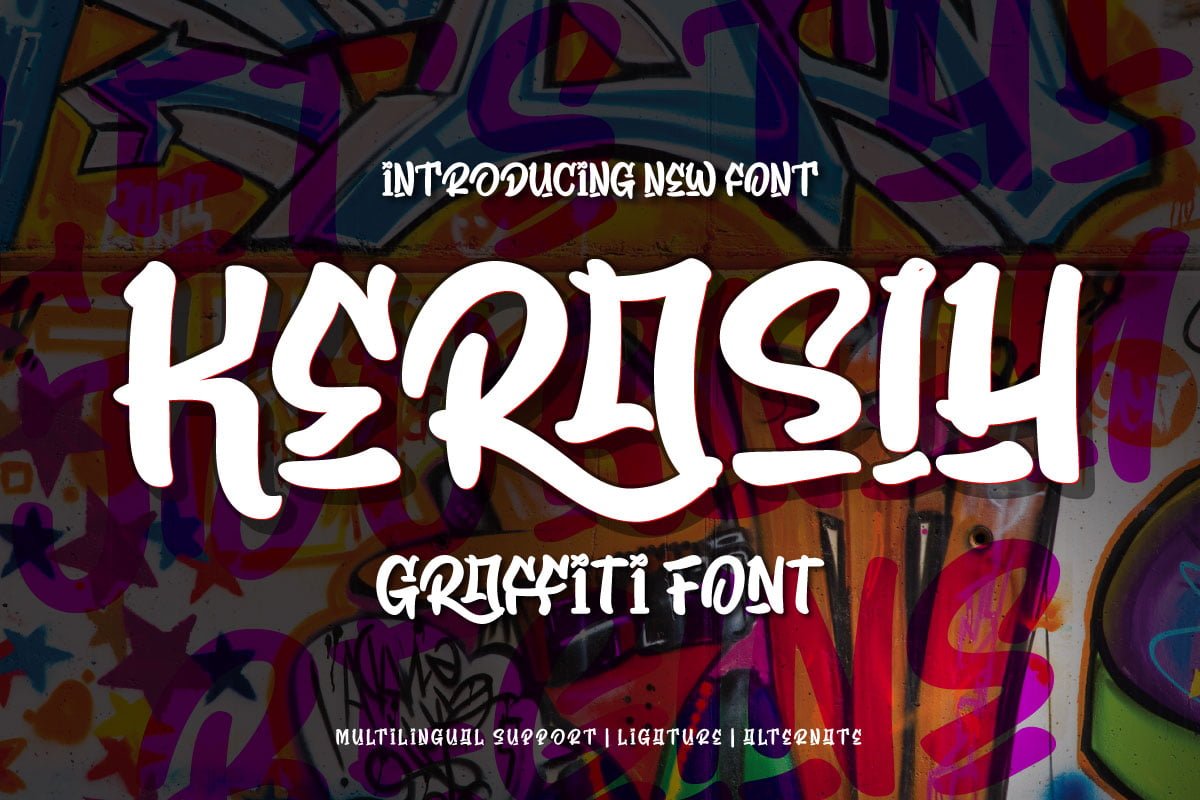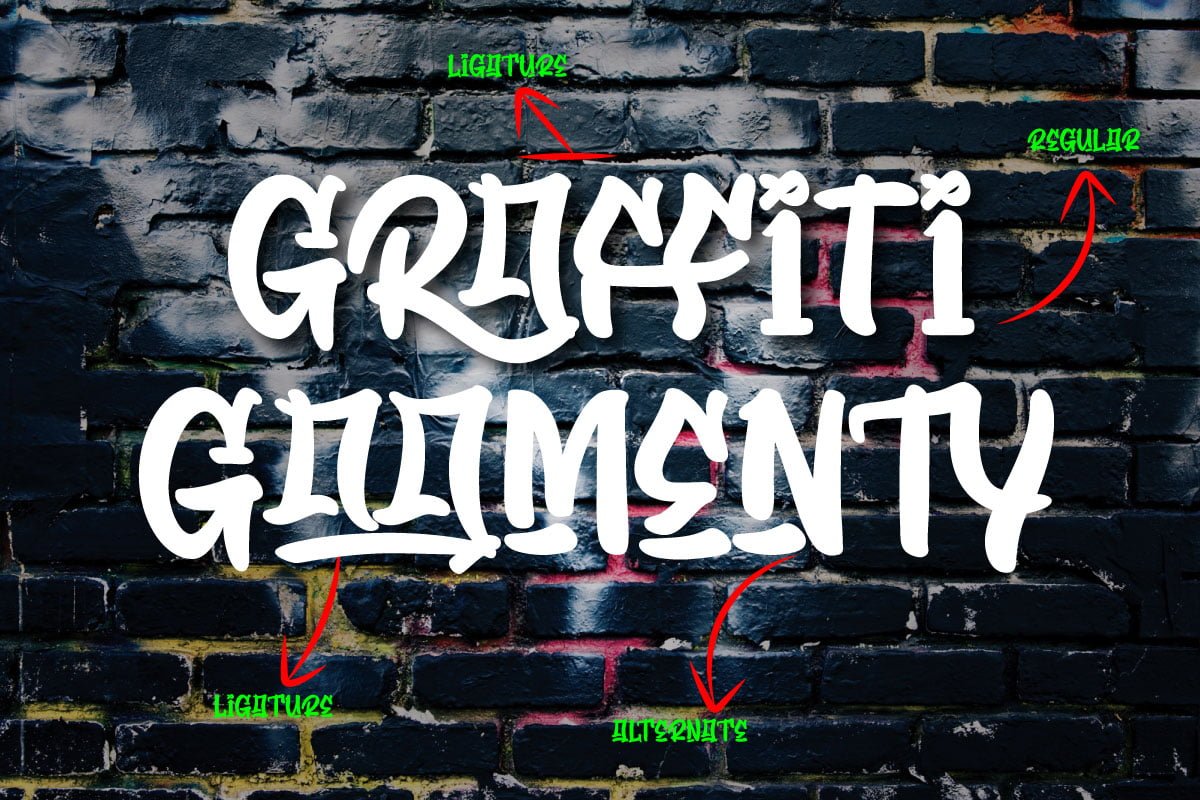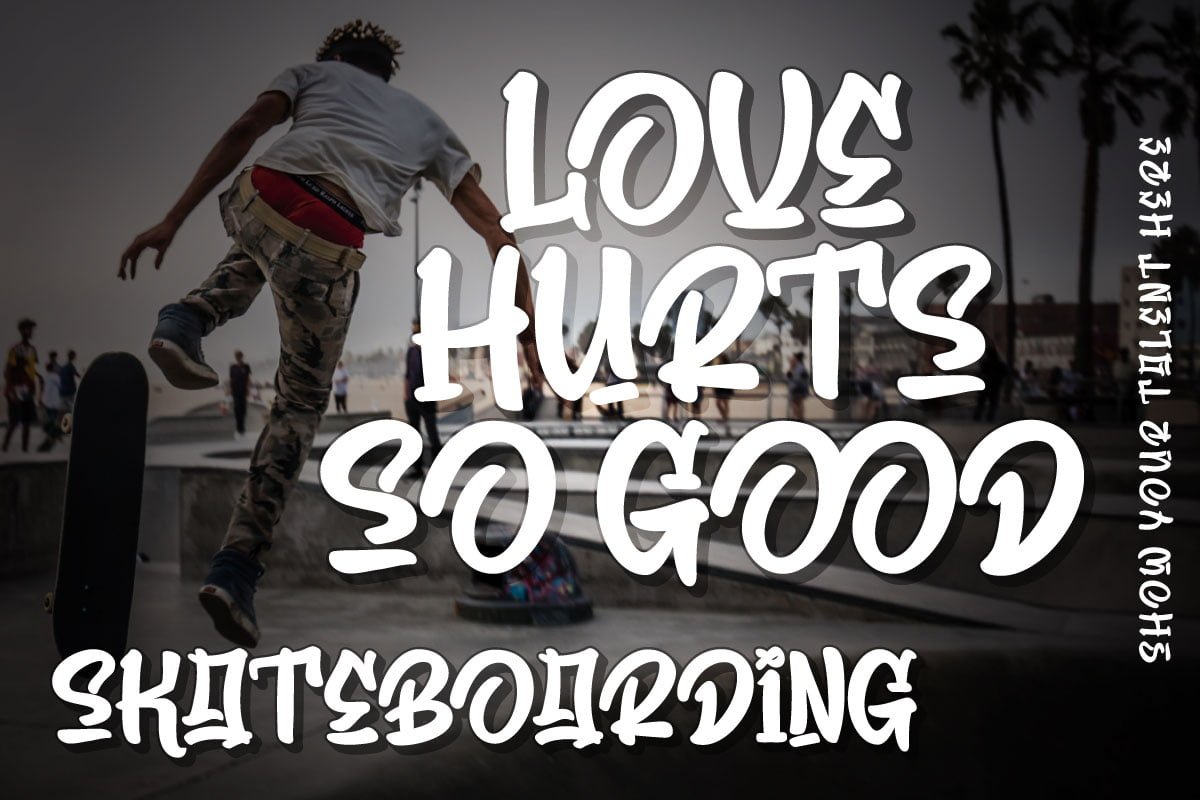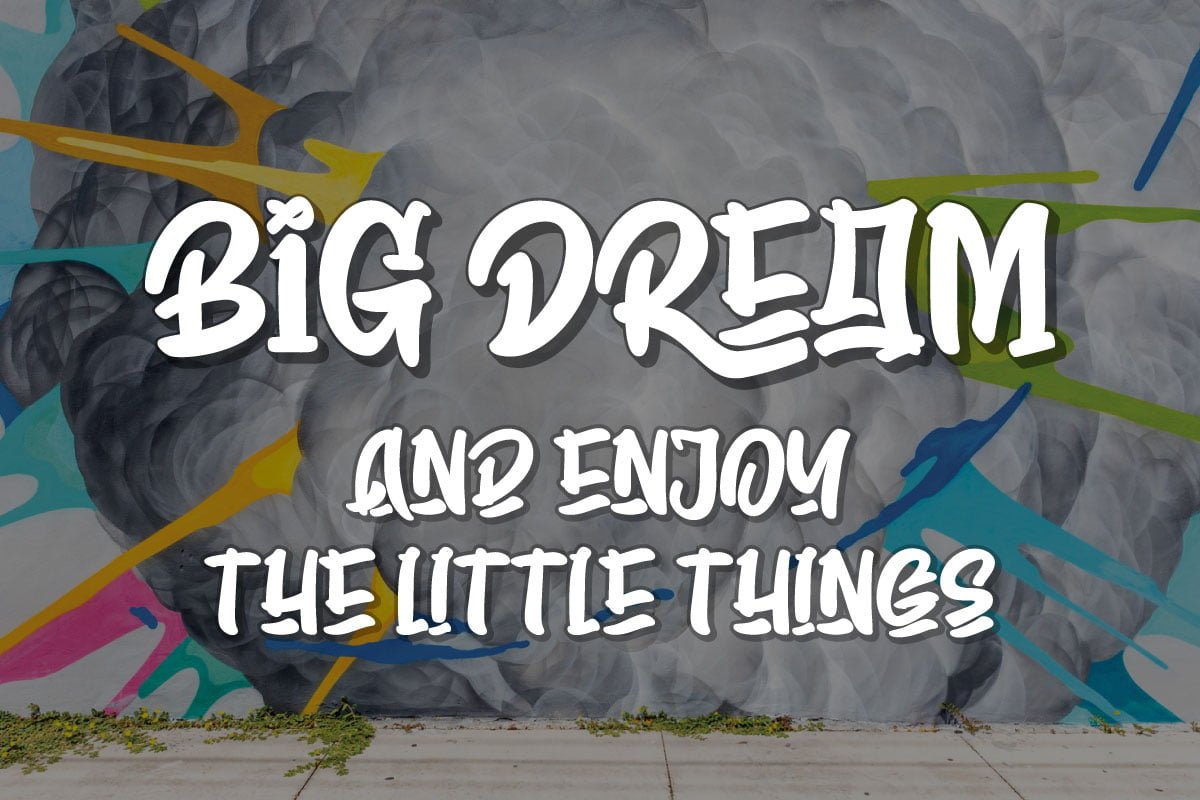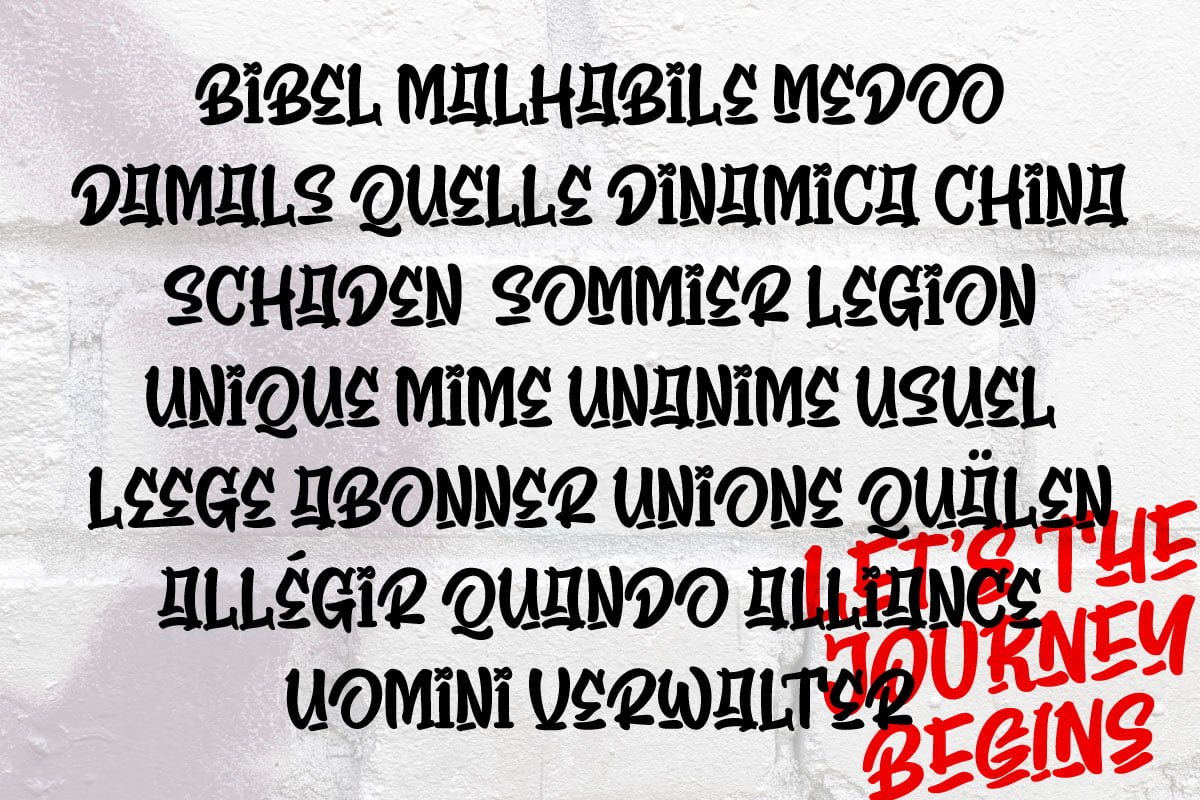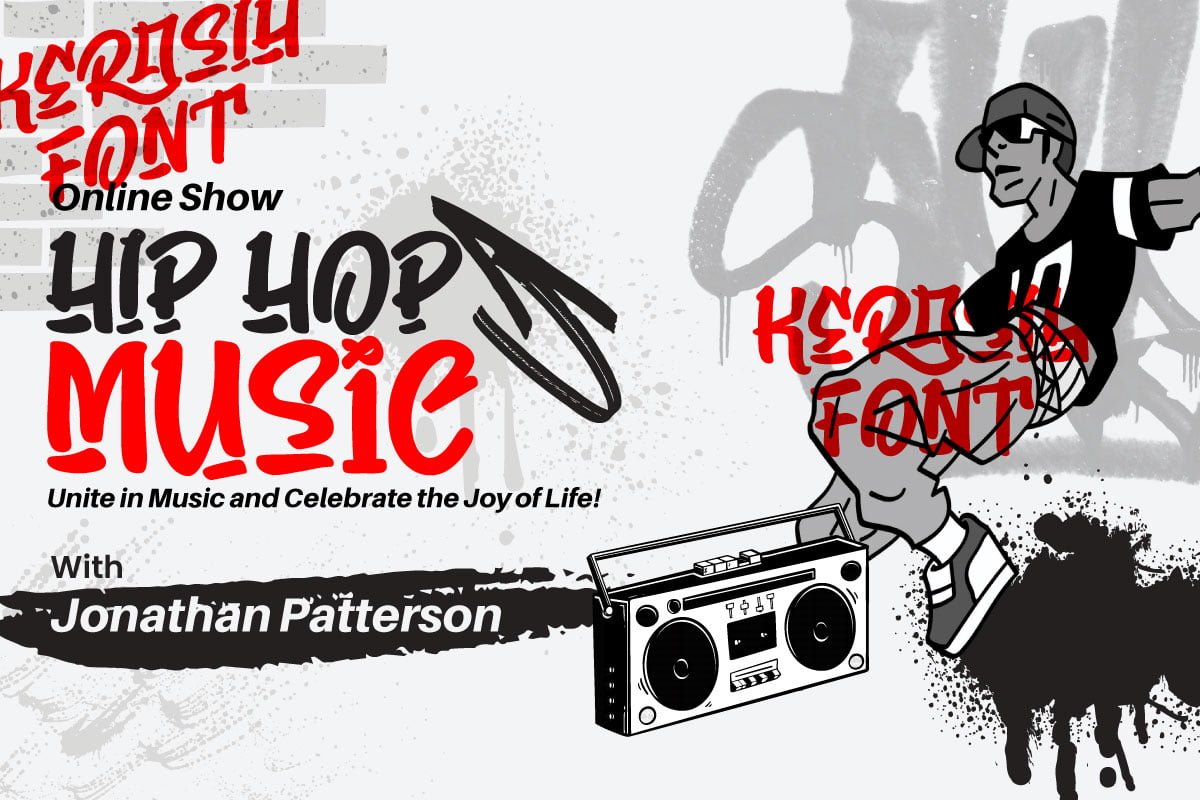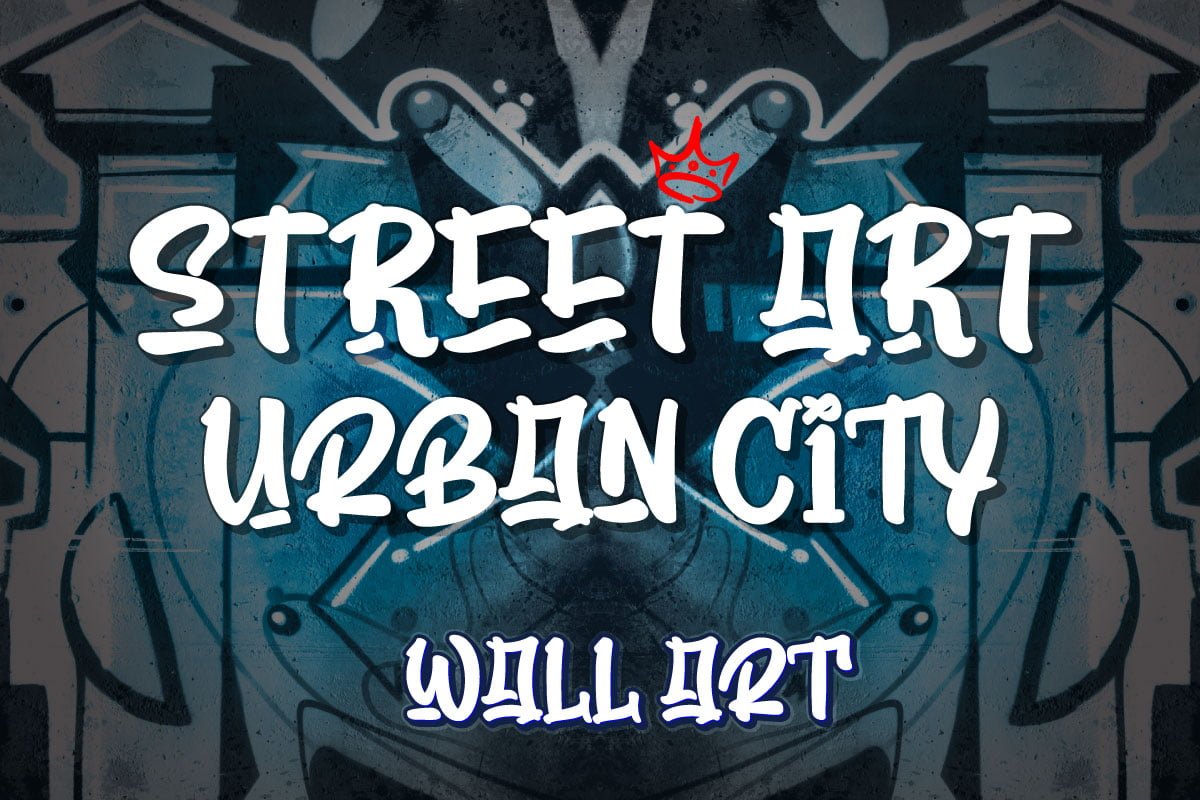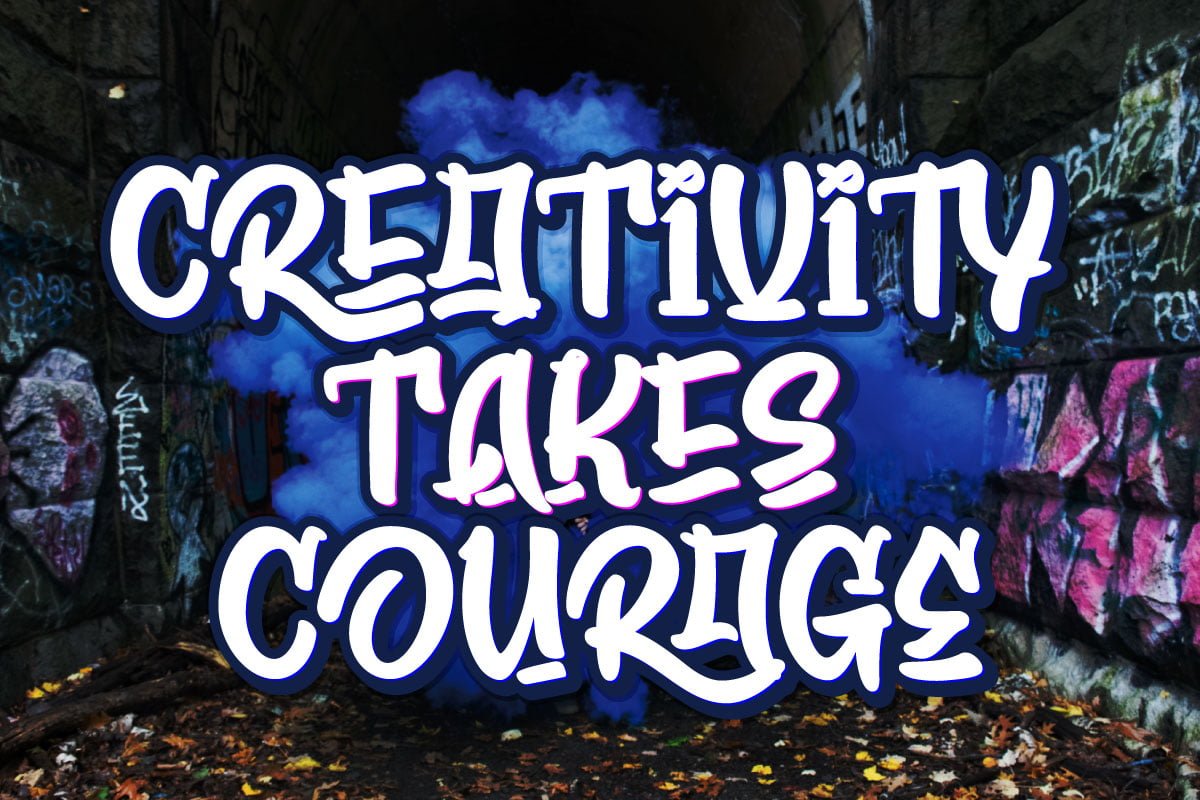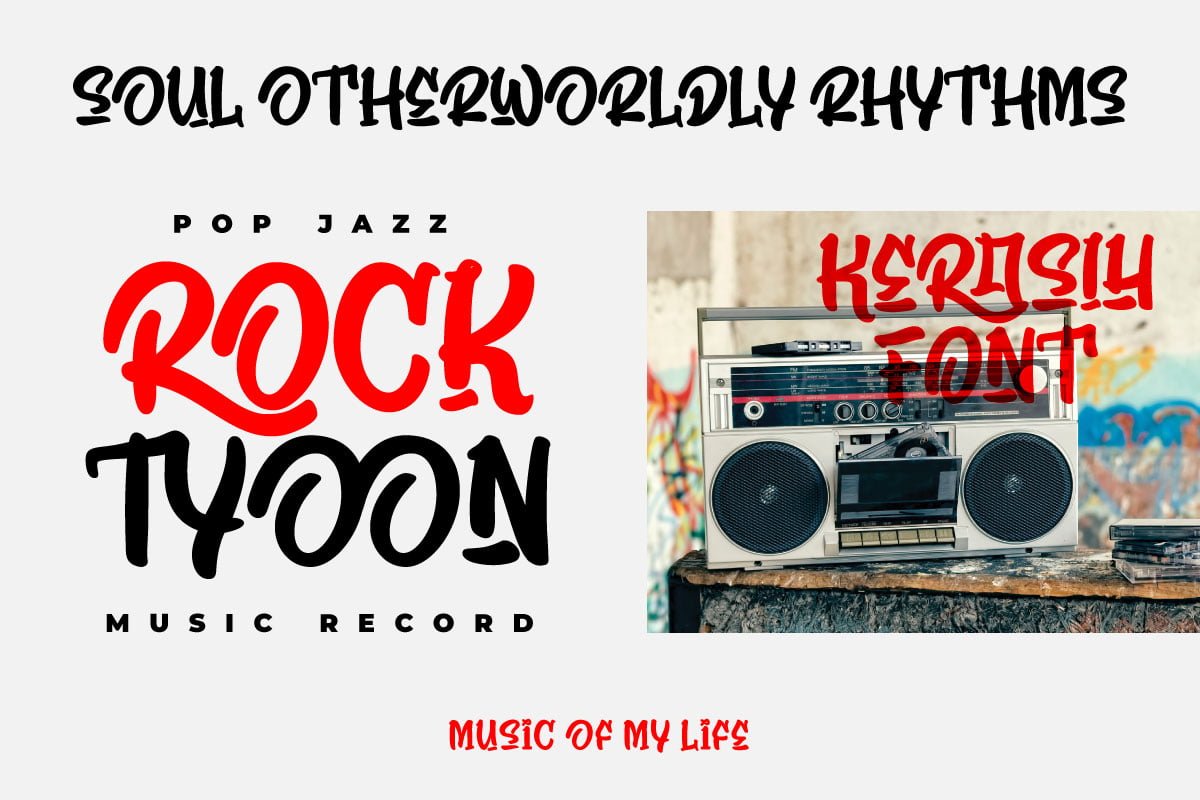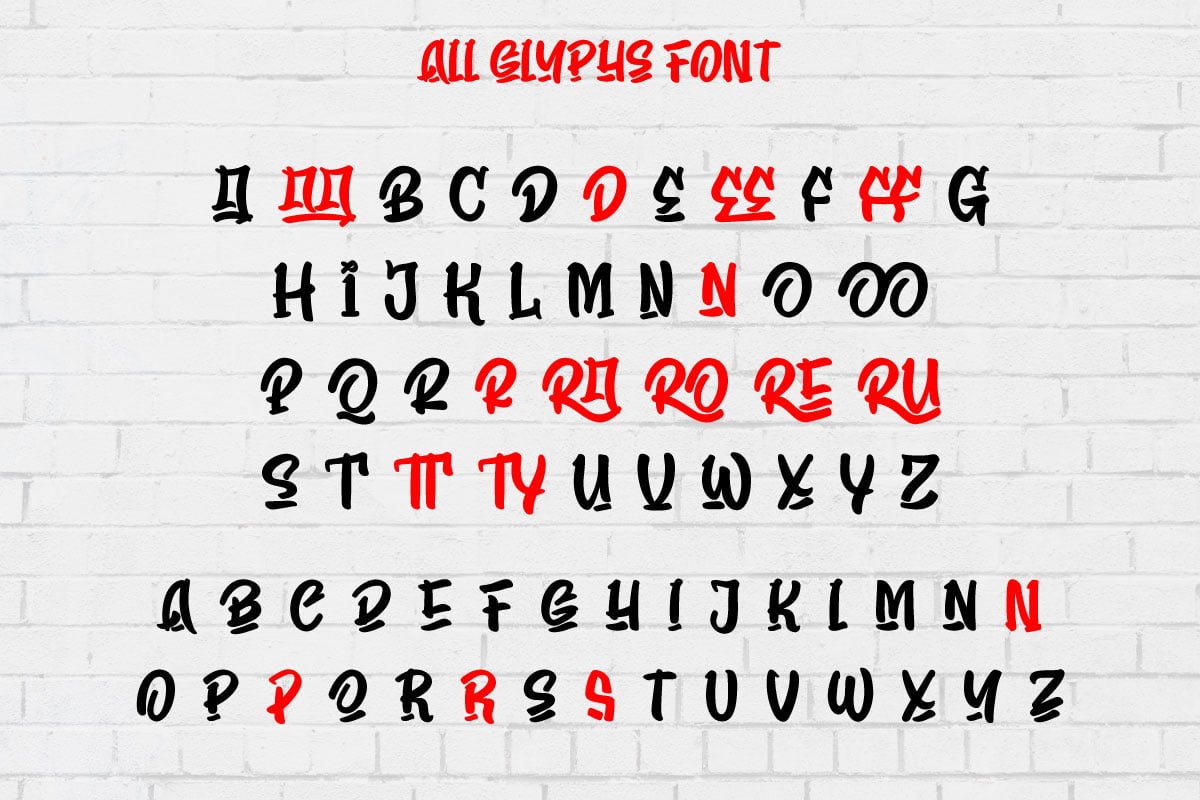
KERASIH – Display Graffiti Font
Kerasih is a graffiti display font that combines art, freedom, and the beauty of handwriting. Crafted with boldness and expression, this font is the perfect solution for projects that require a unique artistic touch and beautiful handwriting.
With Keras, you can create striking and eye-catching designs. This font gives you the freedom to express your creativity and exudes a style like no other. The expressive look and strong character make Kerasih a standout choice among other fonts.
The artistic touch in each letter and the intricate details make Keraasih so attractive. Every cut, line, and stroke exudes boundless creative courage and passion. The bold graffiti design and the feel of beautiful handwriting create a unique and eye-catching combination.
Keraasih takes you into the world of art and freedom. Use this font to create eye-catching posters, memorable logos, or cool merchandise designs. With Kerashy, you can bring an interesting and evocative touch of art to your projects.
• Ligature, Alternate
• Fonts include Multilingual support